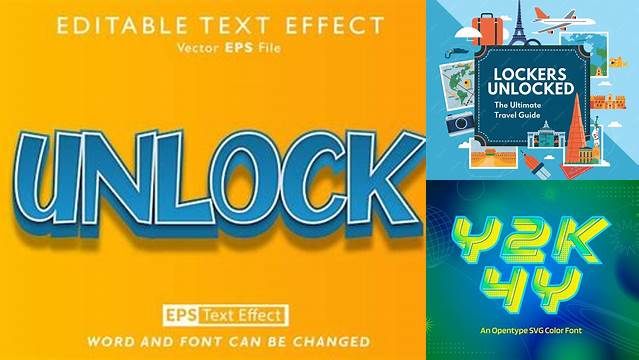
Unlock Premium Fonts On Freepik: Your Guide
Hey guys! Ever felt like your design is missing that special something? Chances are, the font is the culprit! A great font can elevate your project from blah to BAM! And that's where premium fonts on Freepik come in. Let's dive deep into everything you need to know about accessing and using those stunning fonts to level up your design game.
1. What are Premium Fonts on Freepik?
So, what exactly are premium fonts on Freepik? Think of them as the VIP section of the font world. Freepik offers a huge library of fonts, but the premium ones are a cut above the rest. They're usually designed with more care, have more stylistic options (like different weights and italics), and generally offer a more polished and professional look. Premium fonts are created by talented designers and foundries, and Freepik makes them available to subscribers. They often boast unique characteristics and functionalities that set them apart from standard or free fonts. Choosing a premium font can be the difference between a good design and a great design. For example, a premium font might include a broader range of glyphs (those extra characters and symbols), advanced OpenType features (like ligatures and stylistic alternates), and meticulous kerning (the spacing between letters) to ensure perfect readability and visual appeal. The investment in a premium font often translates to a more refined and impactful final product, making it a worthwhile consideration for designers who prioritize quality and aesthetics.
2. Benefits of Using Premium Fonts
Using premium fonts comes with a whole bunch of perks, guys! We're talking about a significant upgrade to your design arsenal. First off, they're usually way more unique than free fonts. This means your designs will stand out and won't look like everyone else's. Think about it – a generic font can make even the most creative design look…well, generic. Premium fonts, on the other hand, offer a level of sophistication and originality that can instantly grab attention. Secondly, premium fonts often have better legibility and readability. Designers of premium fonts pay close attention to details like spacing and kerning, ensuring that the text is easy to read in various sizes and formats. This is crucial for projects like websites, brochures, and presentations, where clear communication is paramount. Furthermore, premium fonts often come with a wider range of styles and weights, giving you more flexibility in your designs. Whether you need a bold font for headlines or a light font for body text, a premium font family typically offers a comprehensive selection to meet your needs. And let's not forget the commercial licensing aspect. With premium fonts, you often get the peace of mind knowing that you have the rights to use the font in your commercial projects, without worrying about copyright issues. This is a significant advantage for businesses and professional designers who need to ensure that their work is fully compliant with legal regulations.
3. How to Find Premium Fonts on Freepik
Finding those awesome premium fonts on Freepik is super easy, promise! Just head over to the Freepik website and navigate to the "Fonts" section. You'll see a bunch of filters on the left side – this is where the magic happens. To specifically find premium fonts, look for a filter or option that says something like "Premium" or "License Type" and select the appropriate option. This will narrow down your search to only show fonts that are part of the premium collection. But that's not all! Freepik also lets you filter by style (like serif, sans-serif, script, etc.), weight (bold, light, regular), and even language. So, if you're looking for a bold, serif font in Spanish, you can filter your search to find exactly what you need. Another tip: use the search bar! If you have a specific font style in mind (like "retro" or "modern"), typing it into the search bar can help you discover premium fonts that fit your aesthetic. Don't forget to browse through Freepik's curated collections and font packs, as these often feature hidden gems and premium fonts that you might not find through a general search. Take your time to explore, experiment with the filters, and you'll be amazed at the variety of premium fonts available to you on Freepik.
6. Using Premium Fonts in Different Design Software
So, you've got your premium fonts installed – now the real fun begins! Let's talk about using them in your favorite design software. Whether you're a Photoshop pro, an Illustrator aficionado, or a Canva enthusiast, integrating premium fonts into your workflow is usually a seamless process. In Adobe Photoshop and Illustrator, your newly installed fonts should automatically appear in the font dropdown menu. Just select the text tool, click on the text you want to style, and then choose your premium font from the list. You can also adjust the font size, weight, and other properties to achieve the desired look. In Canva, you might need to refresh the page or close and reopen the editor for the new fonts to appear. Once they're loaded, you'll find them in the font selection menu, just like in Adobe products. Canva also allows you to upload your own fonts, which is handy if you have premium fonts that you've purchased elsewhere. When using premium fonts in any design software, it's a good idea to experiment with different font combinations and styles. Try pairing your premium font with a simpler font for body text, or use different weights of the same font to create visual hierarchy. Remember, the goal is to choose fonts that complement your design and enhance the overall message. And don't be afraid to get creative and have fun with it! After all, premium fonts are meant to be enjoyed and used to their full potential.
7. Pairing Premium Fonts for Best Results
Font pairing – it's an art, guys! But don't worry, it's totally learnable. The key is to choose premium fonts that complement each other, creating a harmonious and visually appealing design. A classic approach is to pair a serif font with a sans-serif font. Serif fonts (like Times New Roman or Georgia) have those little "feet" or strokes at the end of the letters, while sans-serif fonts (like Arial or Helvetica) are cleaner and more modern. Using a serif font for headings and a sans-serif font for body text can create a nice contrast and improve readability. Another popular strategy is to use different weights of the same premium font family. For example, you could use a bold weight for headings and a regular weight for body text. This creates a cohesive look while still providing visual distinction. When choosing premium fonts to pair, consider the overall tone and style of your design. If you're creating a formal or professional design, you might want to stick to classic and elegant fonts. For a more playful or creative design, you can experiment with bolder and more unique premium fonts. It's also a good idea to limit the number of fonts you use in a single design. Too many fonts can create a cluttered and confusing look. Generally, two or three fonts are more than enough. And finally, trust your eye! If a font pairing looks good to you, then go for it. There are no hard and fast rules, and the best way to learn is to experiment and see what works.
8. Free vs. Premium Fonts: What's the Difference?
Okay, let's break down the age-old question: free fonts versus premium fonts. What's the real difference, and why might you choose one over the other? Free fonts are, well, free! They're readily available on the internet and can be a great option for personal projects or when you're on a tight budget. However, there are some key differences between free fonts and premium fonts that you should be aware of. Premium fonts often have a higher level of quality and craftsmanship. They're typically designed by professional typographers who pay close attention to details like kerning, spacing, and glyph design. This means that premium fonts tend to be more legible and visually appealing than free fonts. Another difference is uniqueness. Because free fonts are widely available, they can sometimes feel a bit overused or generic. Premium fonts, on the other hand, are often more exclusive and can help your designs stand out from the crowd. Licensing is another important factor. Free fonts often come with more restrictive licenses than premium fonts. You might not be able to use a free font for commercial projects, or you might need to give credit to the font designer. Premium fonts typically offer more flexible licensing terms, allowing you to use them in a wider range of projects without worrying about copyright issues. Ultimately, the best choice for you depends on your specific needs and budget. If you're working on a professional project or want to create a truly unique design, investing in premium fonts is often worth the cost. But if you're just starting out or need a font for a personal project, free fonts can be a good starting point.
9. Font Styles Available on Freepik (Serif, Sans-serif, Script, etc.)
Freepik's font library is like a candy store for designers, guys! It's packed with tons of different font styles to suit any project you can imagine. Let's take a quick tour of some of the most popular font categories you'll find on Freepik. First up, we have serif fonts. These are the classic, traditional fonts with those little decorative strokes (serifs) at the end of the letters. Think Times New Roman or Garamond. Serif fonts often convey a sense of formality, elegance, and trustworthiness, making them a great choice for things like logos, headlines, and body text in print materials. Next, we have sans-serif fonts. These are the modern, clean fonts without the serifs. Arial and Helvetica are classic examples. Sans-serif fonts tend to feel more contemporary and approachable, making them a popular choice for websites, user interfaces, and other digital designs. Then there are script fonts. These fonts mimic the look of handwriting and can add a touch of personality and flair to your designs. Script fonts are great for invitations, logos, and headings, but they should be used sparingly, as they can be difficult to read in large blocks of text. Freepik also offers a wide range of other font styles, including display fonts (designed for headlines and other large text), slab serif fonts (a bolder, more geometric type of serif font), and decorative fonts (which are often quirky and unique). With so many options to choose from, you're sure to find the perfect premium font to bring your design vision to life.
20. How to Create Your Own Font Library on Freepik
Creating your own font library on Freepik? Awesome idea, guys! It's like having your own personalized font collection, ready to go whenever inspiration strikes. Freepik doesn't have a direct